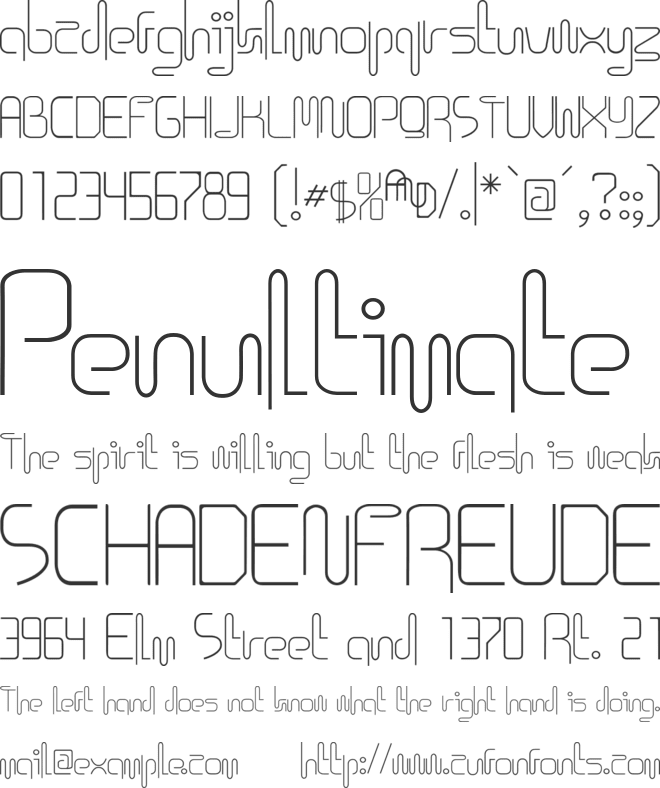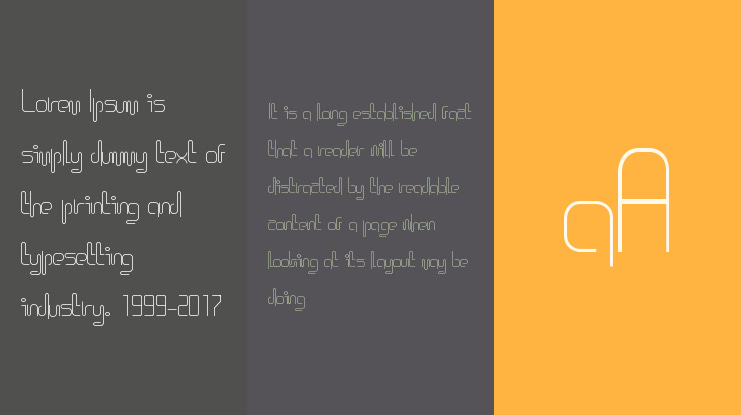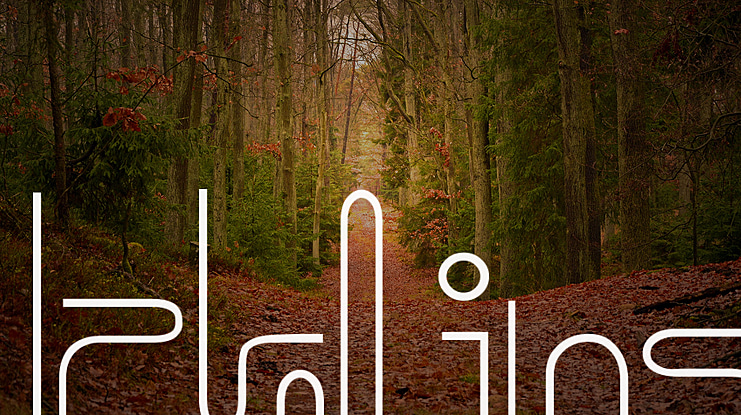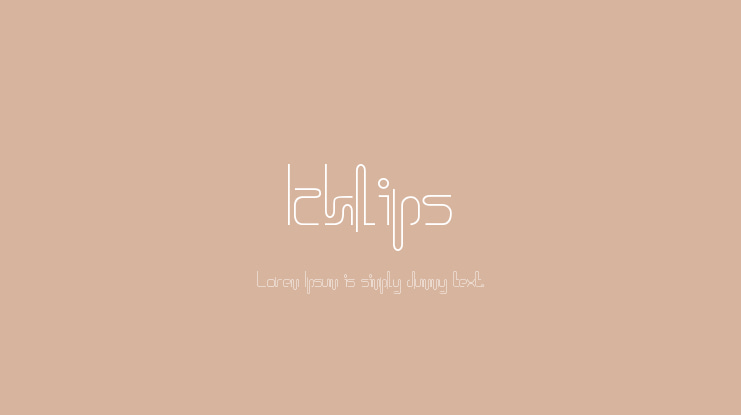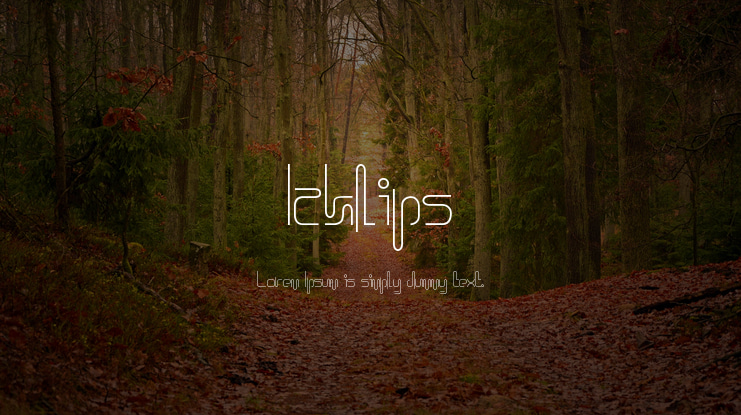
The Icklips font is the result of four months' cooperative work between three designers: Typ in Holland, Neumat Ick in the United States and Apostrophe in Canada. The initial lower case alphabet was drawn in Illustrator by Typ, then tweaked by Neumat Ick, then redrawrn by Typ, then tweaked by Neumat Ick, then tweaked by Apostrophe. The uppercase letters were drawn by Typ and Apostrophe in Illustrator. Numbers and pucntuation and diecritics were drawn by Apostrophe. The Fontlab work, on both Mac and PC versions, was done by Apostrophe.
After Typ came up with the original idea and did the initial drawings, he lapsed into a bad nine-to-five and a cool girlfriend and some hard times with OS9 and a new CD-R. He keeps saying that he'll be drawing some alternates for Icklips. Nobody knows when, but some day it'll happen.